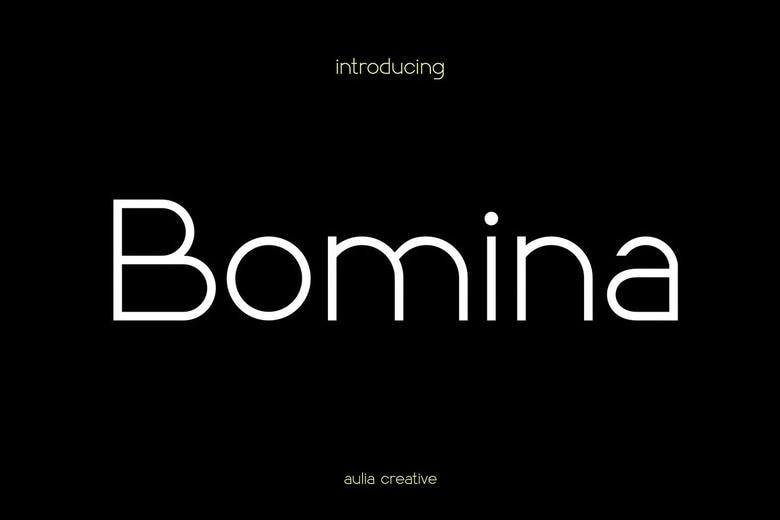
Bomina Font
Bomina is a simple, modern sans-serif font from Auliacreative. You can download it for free and use it in your personal projects. It looks great on elegant logos, branding, travel ads, magazines, beauty products, packaging, quotes, or as a stylish text overlay on any background.
Bomina Minimalist Sans Serif Font